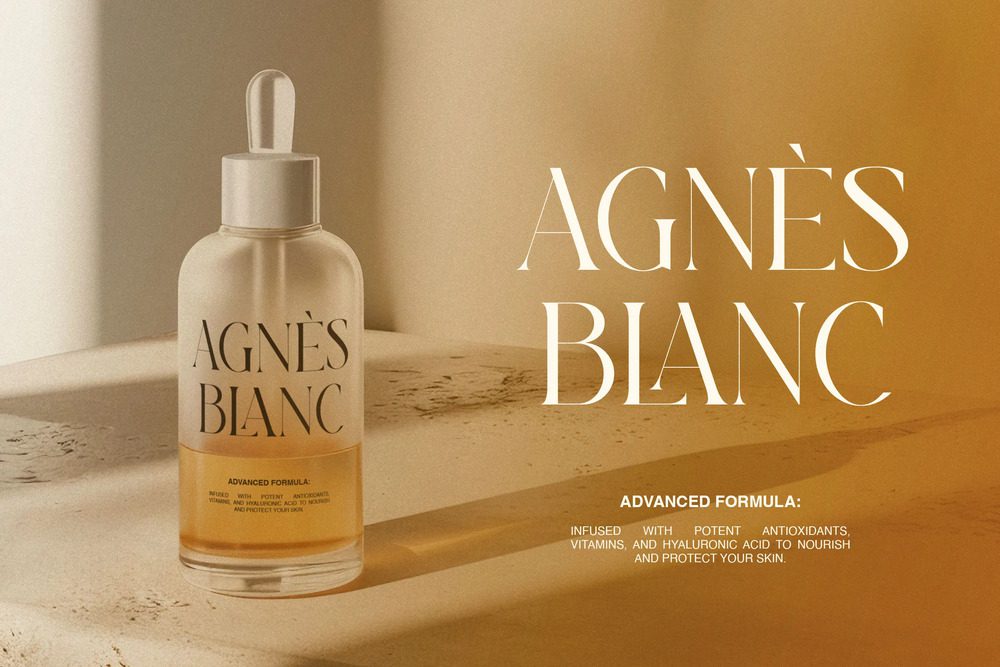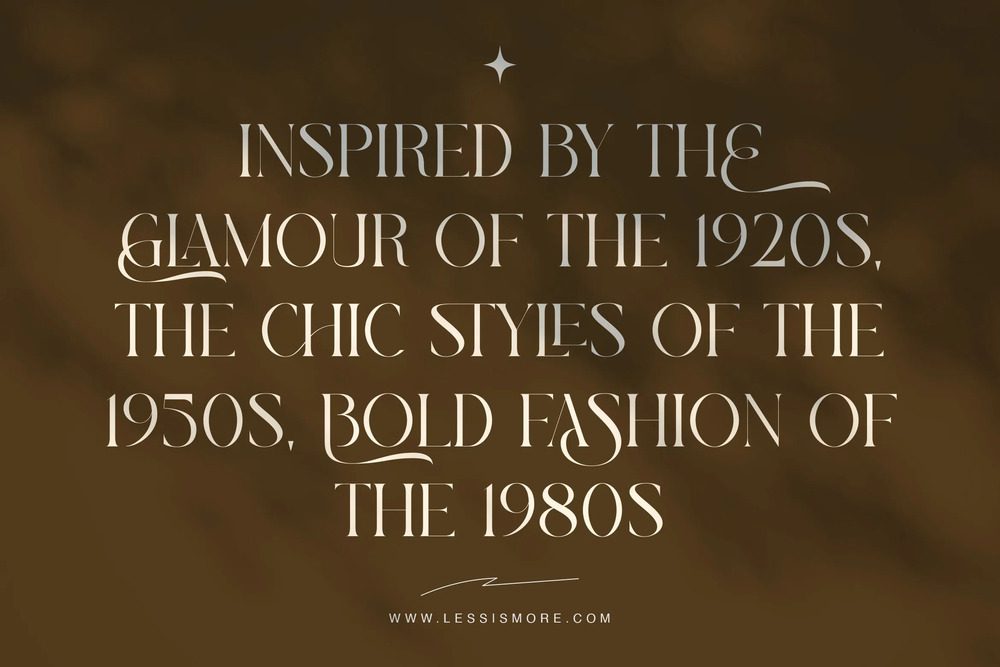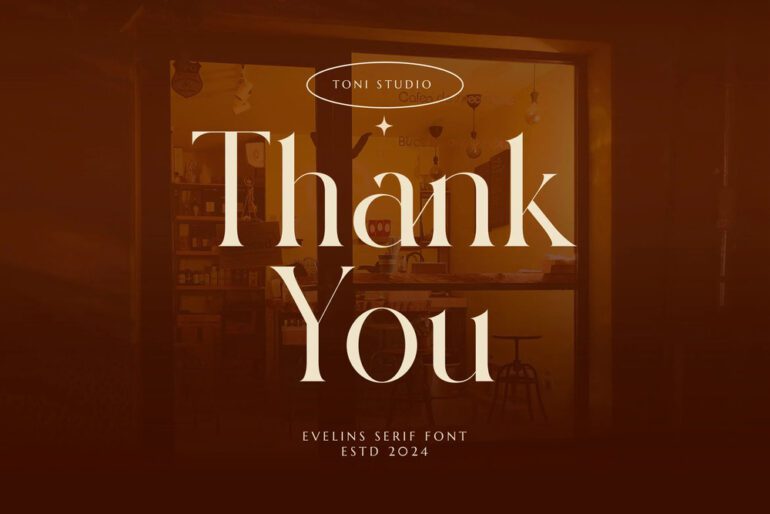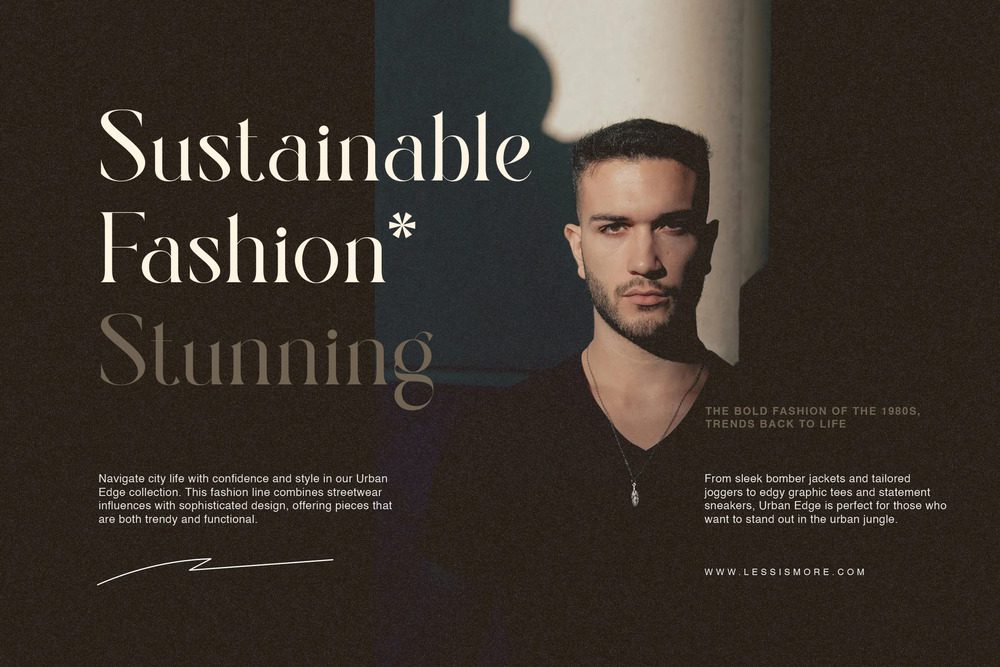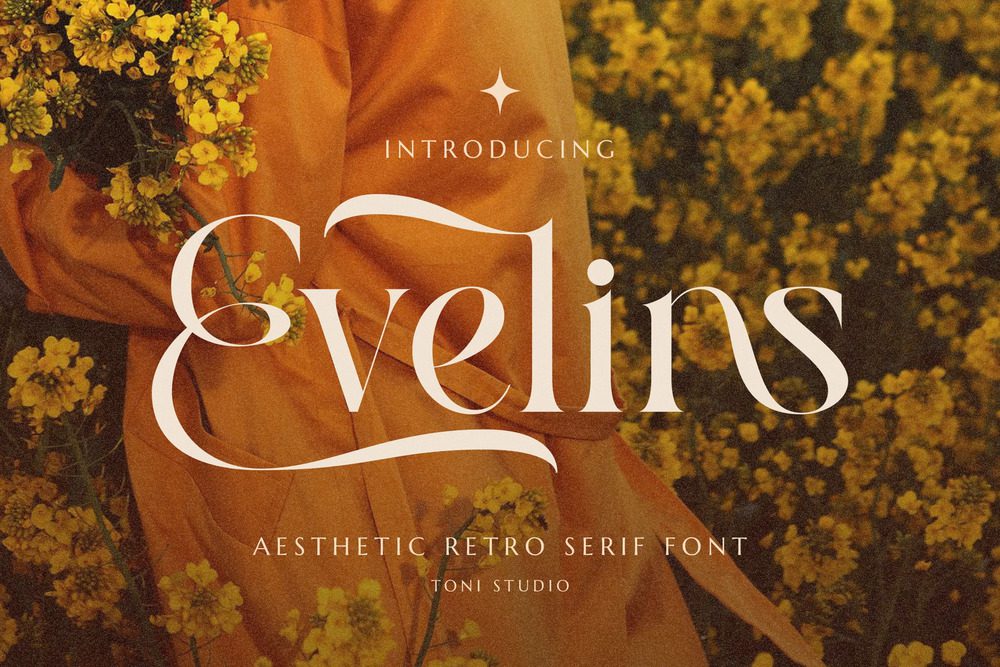
Evelins Serif Font
Evelins Font is the perfect blend of modern moments and a touch of undisturbed romance. The graceful appearance of this serif font brings a luxurious and unique feel, carefully transforming a romantic atmosphere into elegant and alluring letters. Perfect for a variety of projects, Evelins Font is versatile enough to enhance everything from logos to crafts, posters to books, making every brand expression unique and special.